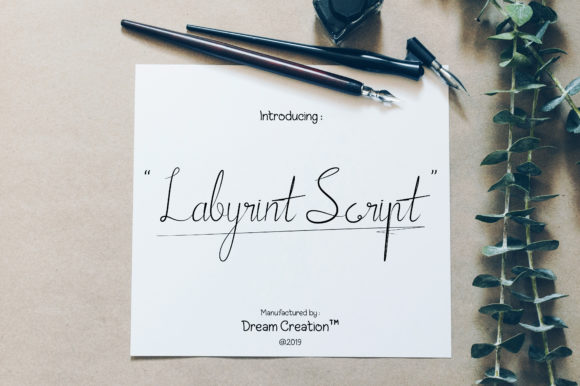
Labyrint Script Font
About Labyrint Script Font
The Labyrint is an elegant signature font. Its handwritten style is perfect for adding a natural, yet luxurious touch to your designs.